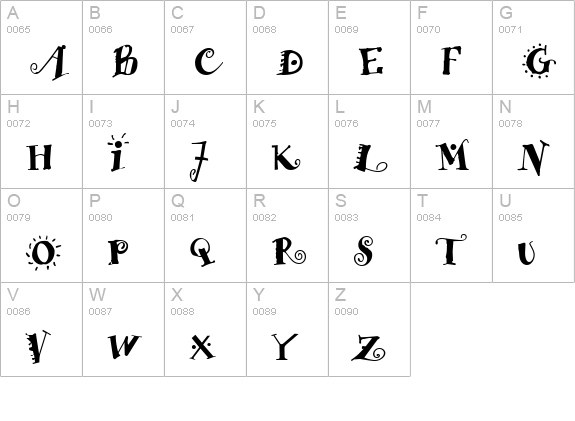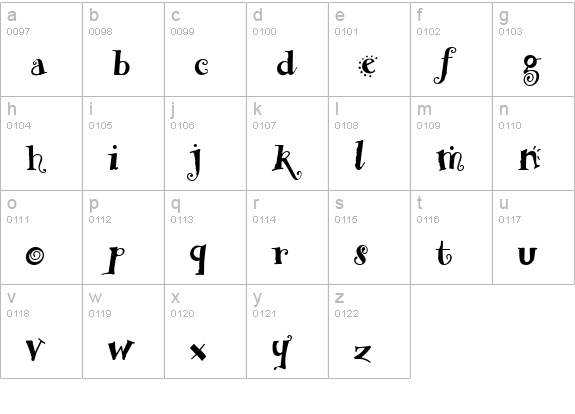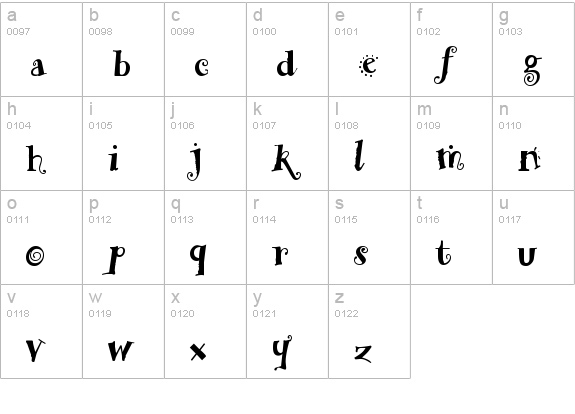
Funstuff Bold Font Details
Funstuff Bold is a strong, high-contrast variant in the Funstuff typeface family \xE2\x80\x94 well suited to headlines, attention-grabbing titles, and strong calls-to-action.
Funstuff Bold font is a playful and lively typeface that is sure to add a touch of fun to your designs. With its bold and rounded characters, this font exudes a sense of energy and excitement. Perfect for adding a whimsical touch to posters, invitations, and more, Funstuff Bold is a versatile font that will catch the eye of any viewer. The best part? Funstuff Bold is available for free download at FontsMarket.com. So go ahead and unleash your creativity with this delightful font that is sure to make your designs stand out!